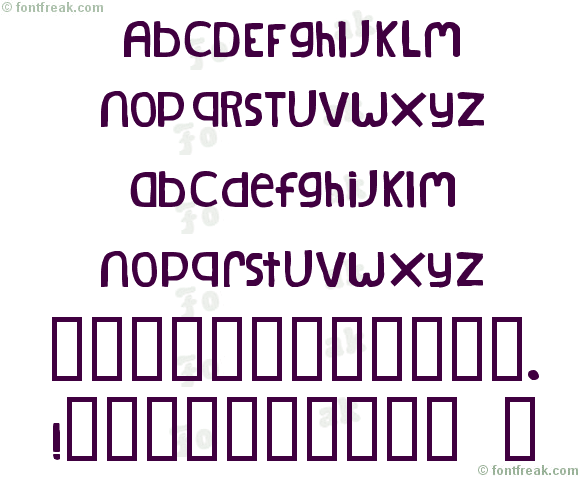
Natural Log
Natural Log by Divide By Zero is a unique display font that captures a natural, organic feel. This typeface stands out with its playful yet structured design, making it an excellent choice for a variety of creative projects. Characterized by its smooth, rounded edges and slightly irregular line weights, the Natural Log font exudes a handmade quality that invites warmth and approachability. The overall spacing is well-balanced, allowing for easy readability while maintaining its distinctive character.
This font is particularly suited for use in creative applications such as wedding invitations, where its casual charm can add a personal touch. It also works wonderfully for promotional materials like flyers and brochures, lending a friendly aesthetic that can engage potential customers. Additionally, the Natural Log font fits perfectly on restaurant menus, providing a welcoming vibe that complements a cozy dining atmosphere. Graphic designers and content creators will find it a valuable asset for branding projects, social media graphics, and logo designs that require a touch of uniqueness.
What truly sets the Natural Log font apart is its ability to blend a modern aesthetic with a touch of nature-inspired charm. Whether you're crafting an inviting poster or designing a memorable logo, this font brings a distinctive flair that elevates any project. Embrace the creativity it offers and make your designs stand out with the Natural Log font free download.